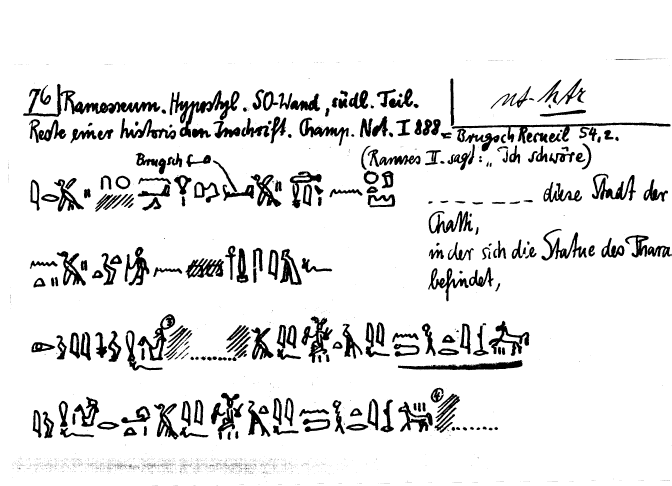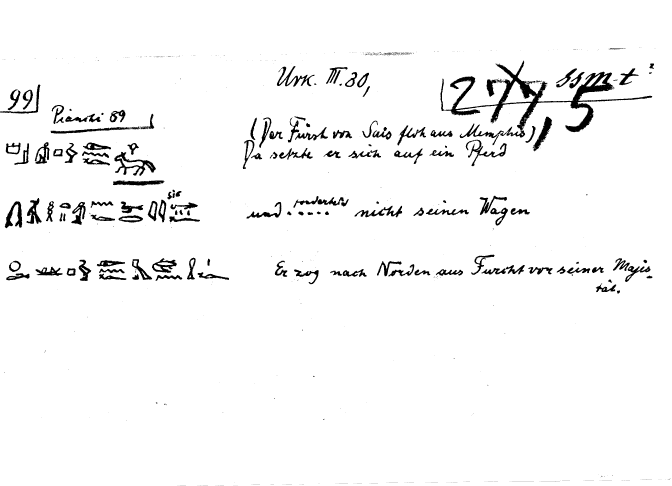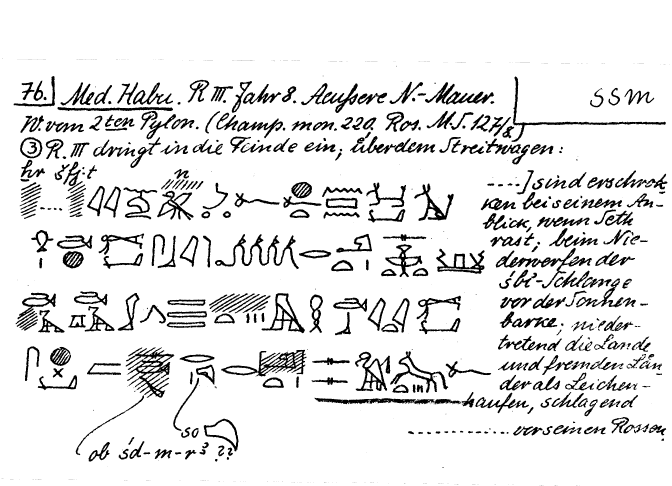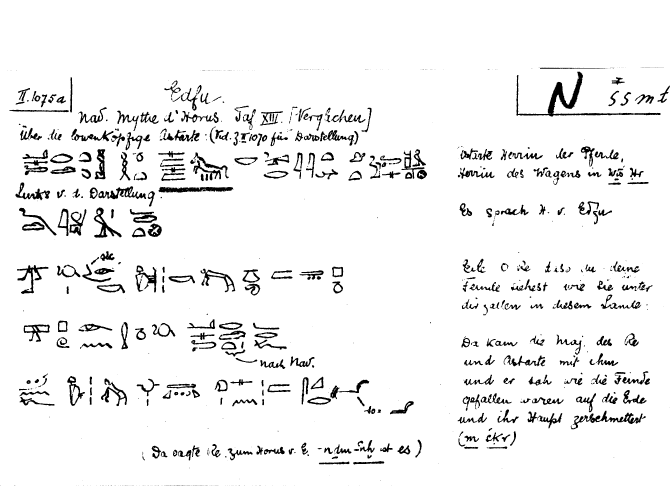
[Egyptian] Ligature joiners - evidence needed please
Was just glancing to see if there were any awkward groups in the TT99 material and one jumped out which is not so often mentioned, that is with the tongue sign when used as imy-r ‘overseer’. It is impossible to get grouping it right in JSesh without considerable manual manipulation, or export to Illustrator (which I prefer anyway). I attach some graphics, one from a quick go in JSesh, and others from the facsimile originals. The ‘tail’ of the tongue has something in common with D. Title groups are often enough to defeat any setting program.
The Z1 sign is a pain too, but that may be more of the fact that many fonts oversize it. Using “3” for the squashed plural signs produces a better effect. But I realise this is not the issue about which you are concerned.
>
> Just to be clear to all. I’d like to make a good case for controls and identify/illustrate any variations or issues needing discussion.
> If anyone has time to create a doc/PDF with a bunch of graphic illustrations of clusters showing awkward cases this would save me time – I’ve plenty else to do on this ASAP so help appreciated.
> Hi all,
> concerning the one ligature joiner vs. the four corner ligature joiner:
> > I’ve not yet seen any data, evidence or rationale about the suggested 5 positional ligature system discussed at Cambridge. I don’t have unlimited time to research all this myself and I’m not an Egyptologist. Technically such a system can be added to current controls but it needs to be well-defined, detailed and justified if it is to be submitted. [This is what I’m doing with the group-joiners].
>
> Why should one use four instead of one ligature joiner?
> Because the encoding with four control characters offers more
> information. It is readable for the egyptologist and for the font
> developer. Cf. my example from the last week: In the temple of Kom Ombo,
> there are two ligatures with the knife T31 and the bread X1. We can
> encode this in RES with insert[bs](T31,X1) and insert[te](T31,X1). The
> position of the X1 is obvious. But if we have T31&X1, one cannot decide
> the position of X1. And a font developer could create such ligature with
> the "corner control character" even if he do not see the original
> reference, but he cannot do anything if he only has T31&X1. But what
> about T31&N29 or T31&O49, ligatures, that occurs in the Kom Ombo temple?
> We (the egyptologists, the font developers, the fonts) cannot interpret
> the ligature only with this encoding.
>
> Okay, the Kom Ombo temple belongs to the ptolemaic and not to the
> "classical" writing system. But the encoding of this temple is important
> for the TLA project, because the Kom Ombo project wants to encode their
> data in our system, so that we will have such encodings in our material.
> But there are such problems in more classical data, too:
>
> For example the ligatures with E6. Bob, you offers three ligatures in
> your EGPZ 1.0 BETA Specification (August 2007): U+eb13 E6&Z2d, U+eb14
> E6&X1, and U+eb15 E6&Z1. These ligatures could be encoded as
> insert[te](E6,Z2), insert[te](E6,X1), insert[b](E6,Z1) in RES. But there
> are examples where the plral strokes are in another corner. These
> examples (DZA 24.607.440
> <http://aaew.bbaw.de/dza/24/24605000/24607440.gif> or DZA 28.723.300
> <http://aaew.bbaw.de/dza/28/28720000/28723300.gif>) could be encoded as
> insert[bs](E6,Z2) in RES. As in T31&X1, the encoding of E6&Z2 is
> ambiguous. The three ligatures which E6 use different corners.
> Therefore, it is not clear how to interpret E6&D2 or E6&X1&Z2. But if we
> have the four corner control characters, we could encode something like
> the RES code insert[te](E6,D2) instead of E6&D2 in DZA 28.722.290
> <http://aaew.bbaw.de/dza/28/28720000/28722290.gif>. The E6&X1&Z2 would
> be the readable insert[bs](E6,X1*Z2) in RES (DZA 28.722.530
> <http://aaew.bbaw.de/dza/28/28720000/28722530.gif>). BTW, this example
> is an argument for the special grouping character "g*" which Michael
> wrote on the whiteboard last week: X1 g* Z2 insert_bs E6 and the
> g*-group has to be parsed first. But this is another topic...
>